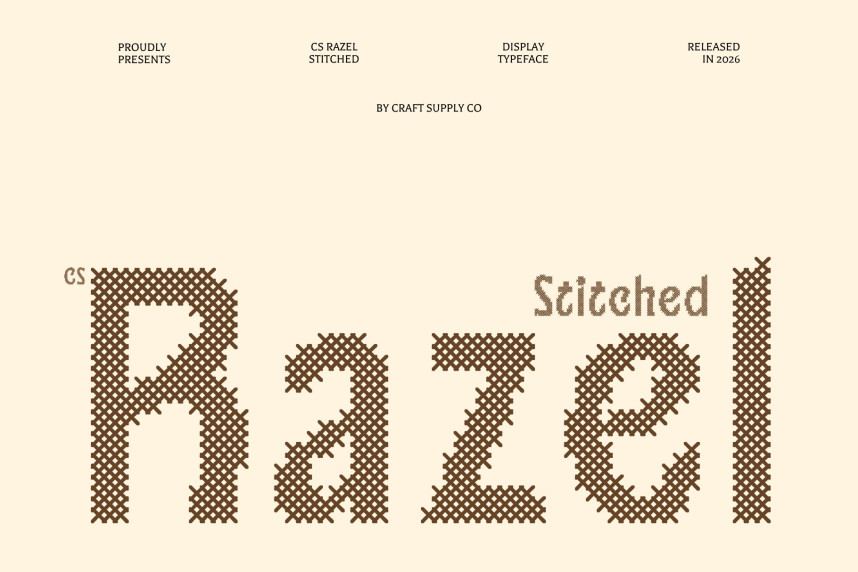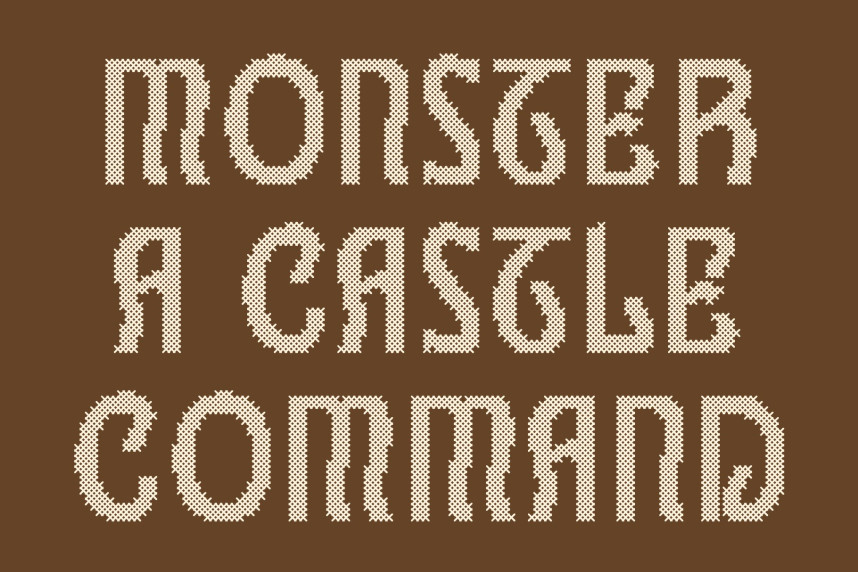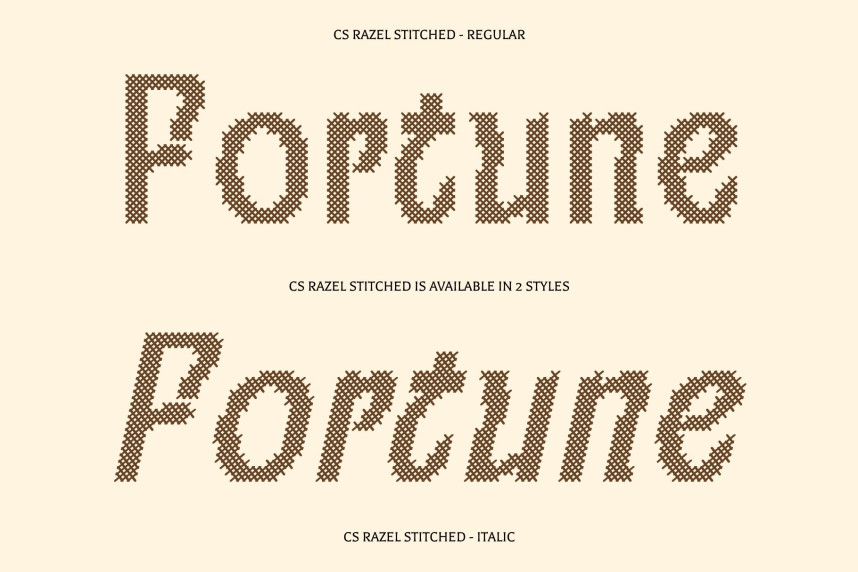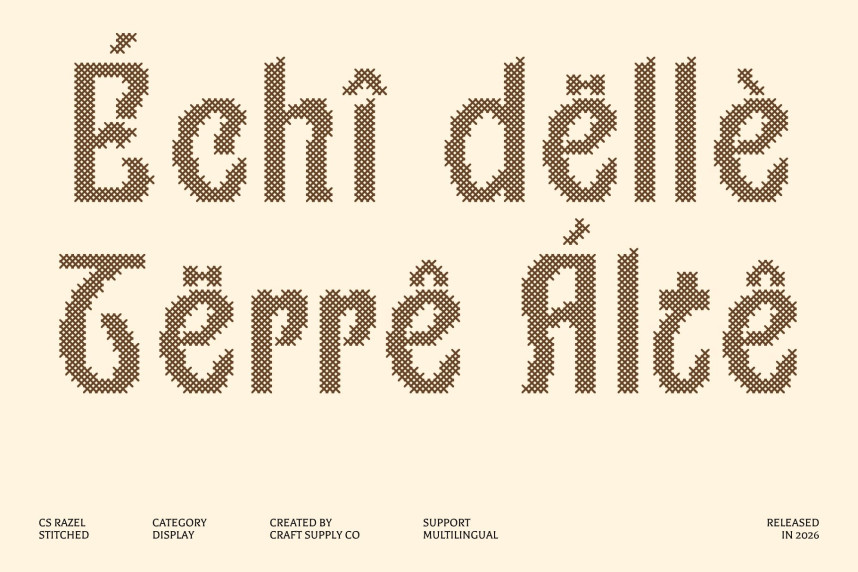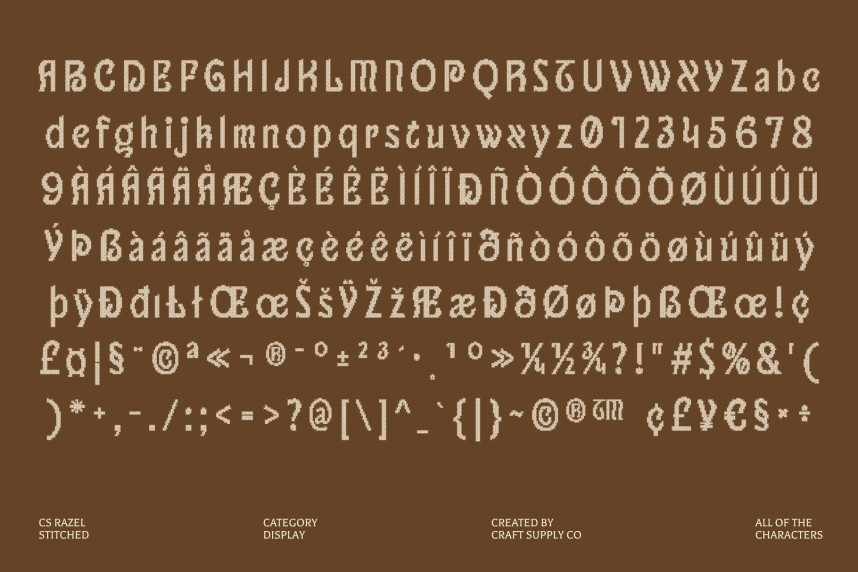
CS Razel Stitched Font
CS Razel Stitched Font – Art Nouveau Font
Flowing Elegance with Handcrafted Character
This is a refined display sans-serif font that blends the graceful curves of Art Nouveau with the clarity of modern design. Enhanced with a stitched texture, the letterforms gain a handcrafted warmth that adds depth and personality while preserving their sophisticated and elegant appearance.